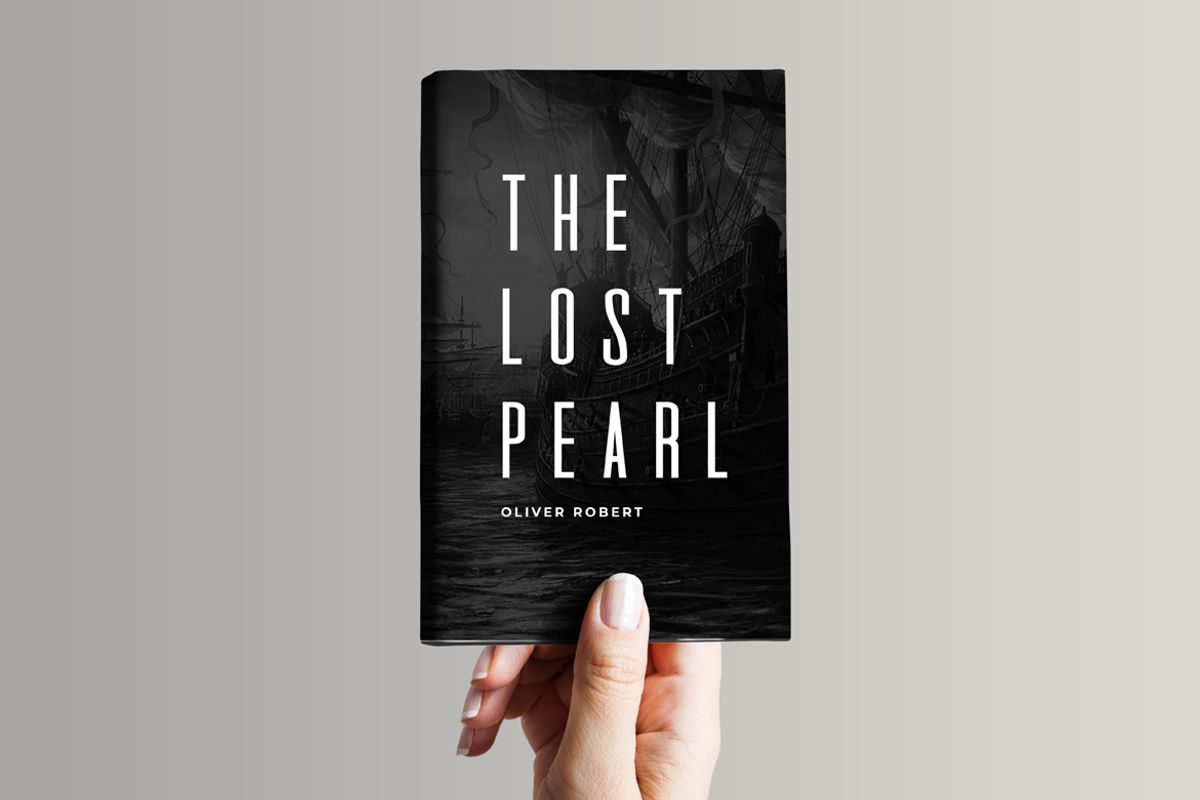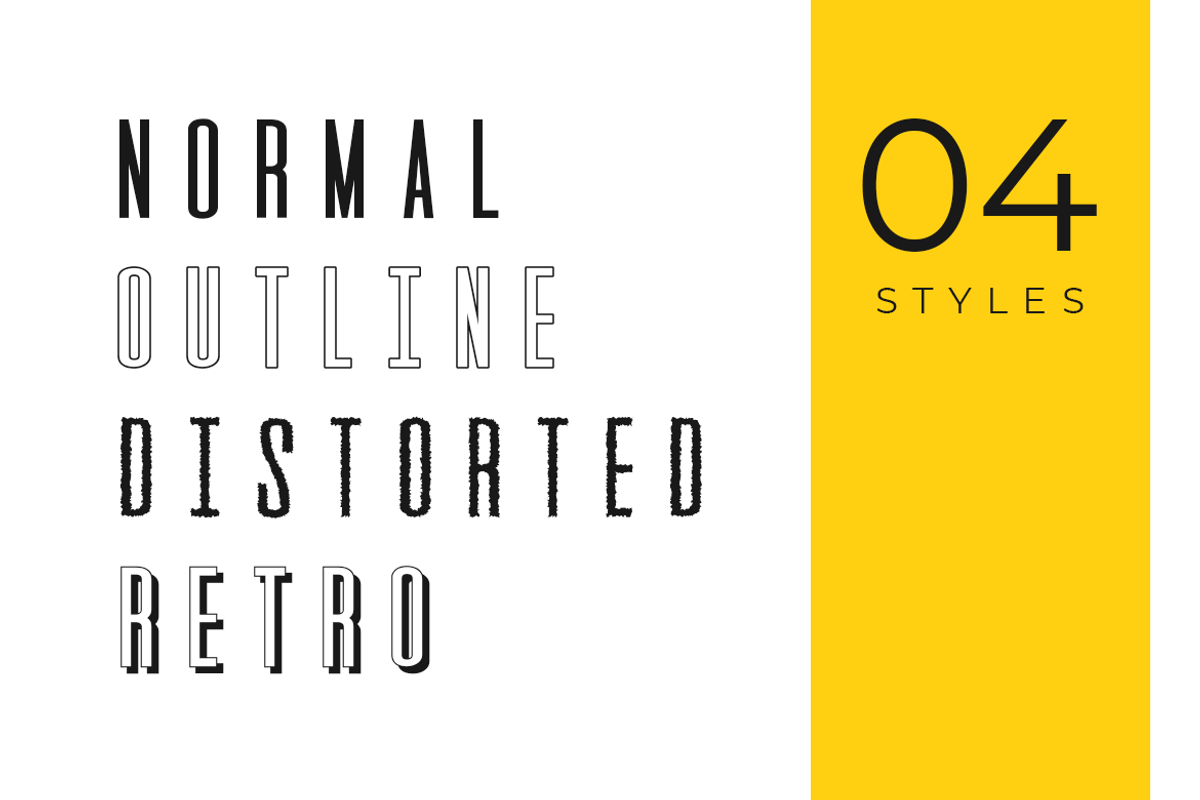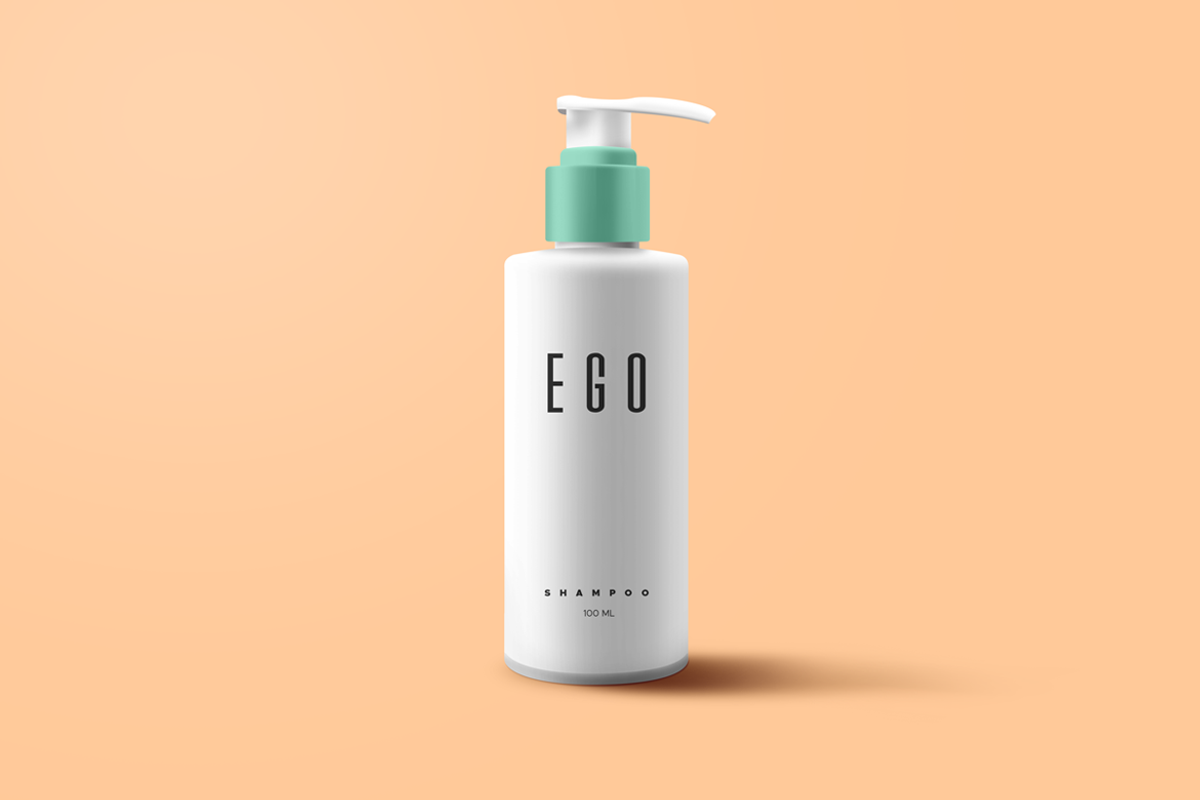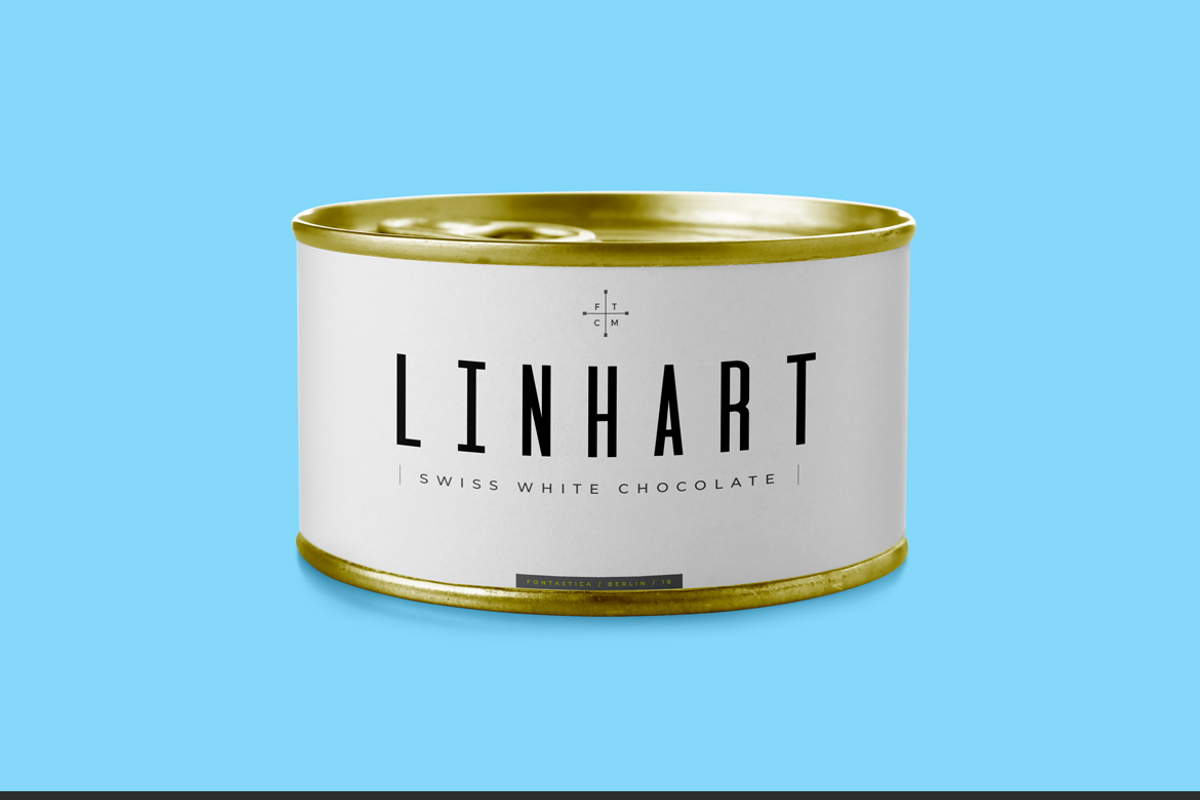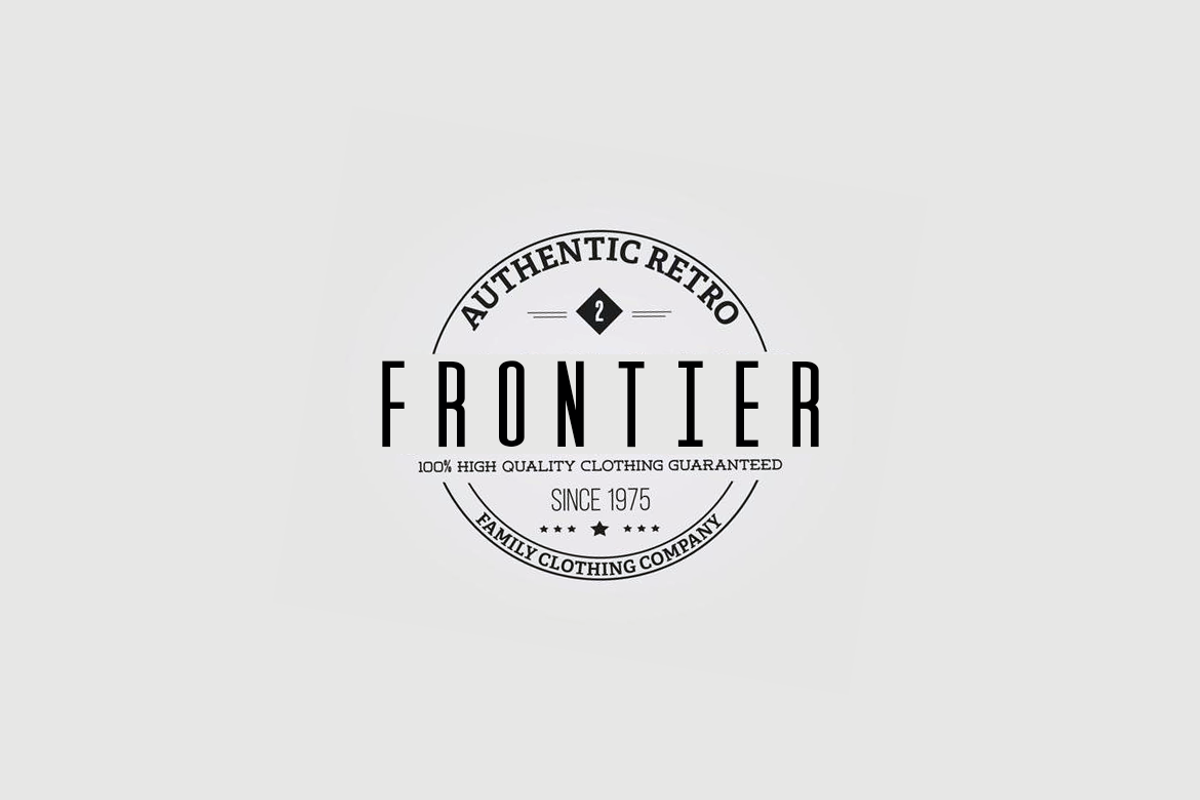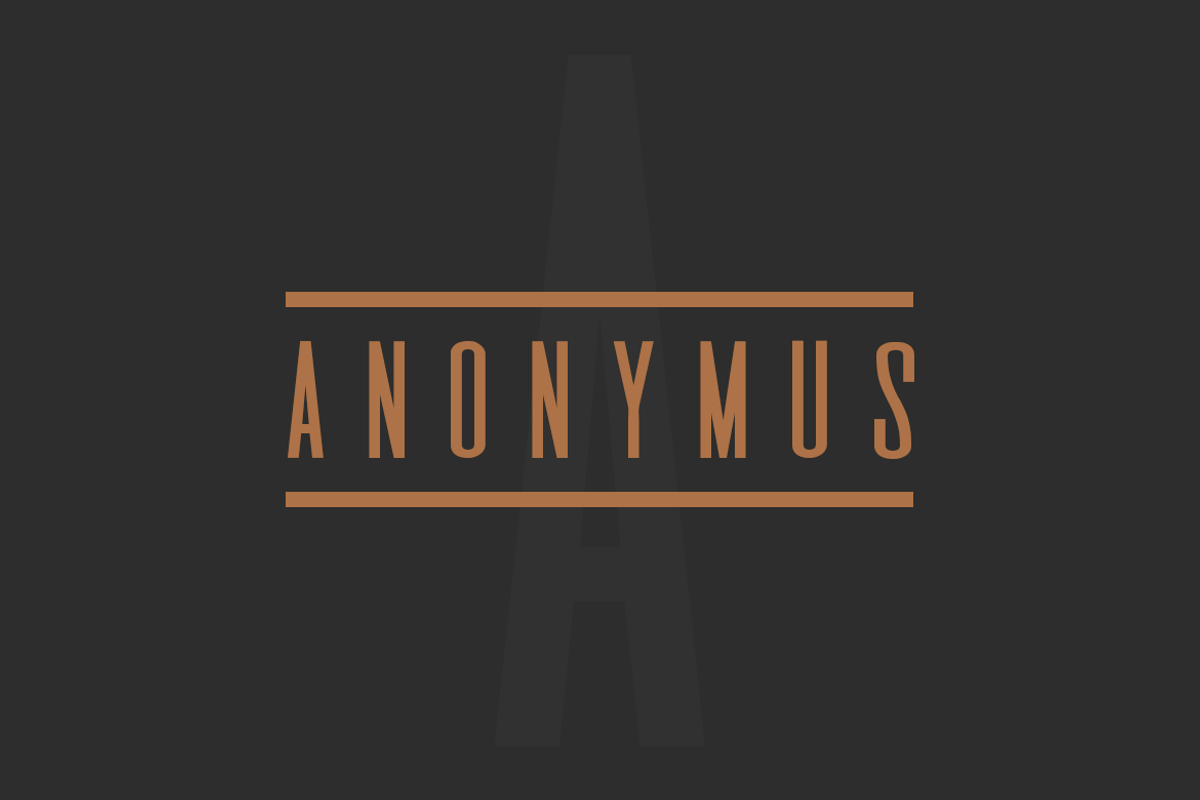
GATSBY - Unique Display Typeface
GATSBY is a unique typeface for headlines, big text, branding, logotypes & display usage. This all-caps typeface comes with 4 different styles (Normal, Outline, Retro, Distorted) is best for creating outstanding logos, promotional content and marketing graphics that can really grab attention from your visitors. Please see the examples shown above to get an idea about the capability of this typeface.
- This all-caps typeface comes with 4 different styles (Normal, Outline, Retro, Distorted) is best for creating outstanding logos, promotional
- GATSBY comes with single weight + 4 styles (Normal, Outline, Retro, Distorted).
- Gatsby Normal
- Gatsby Distorted
- Gatsby Outline
- Gatsby Retro